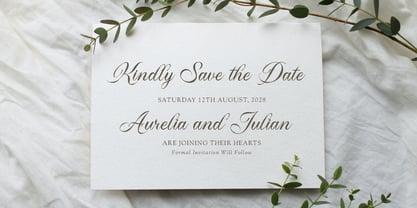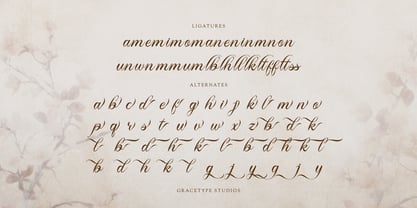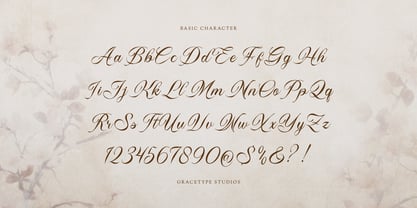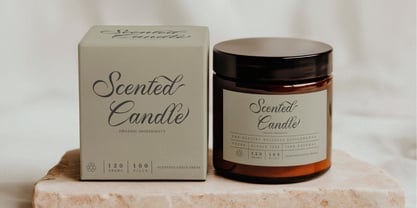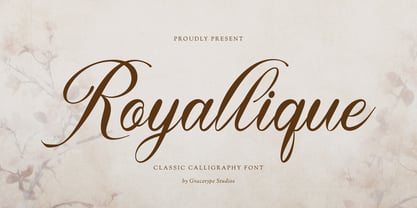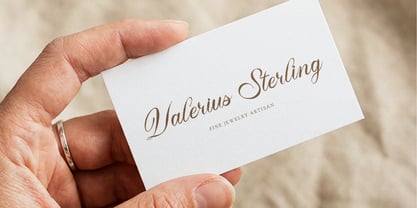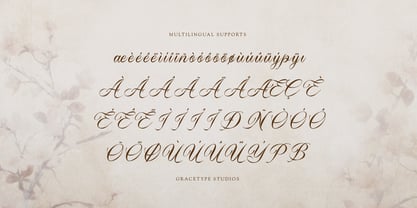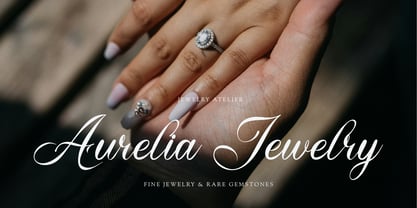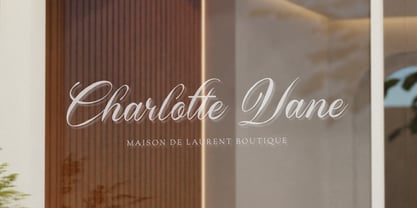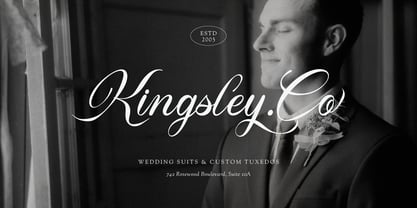
Royallique
Die Schriftfamilie Royallique entworfen und von Tini Fitriani veröffentlicht. Royallique enthält 2 Stile und Familienpaketoptionen. Mehr über diese Familie
Royallique | Classic Calligraphy, from Gracetypestudio, suitable for any projects such as: logos, branding projects, homeware designs, product packaging, mugs, quotes, posters, shopping bags, t-shirts, book covers, name card, invitation cards, greeting cards, label, photography, watermark, special events, and all your other lovely projects that need a Calligraphy taste.